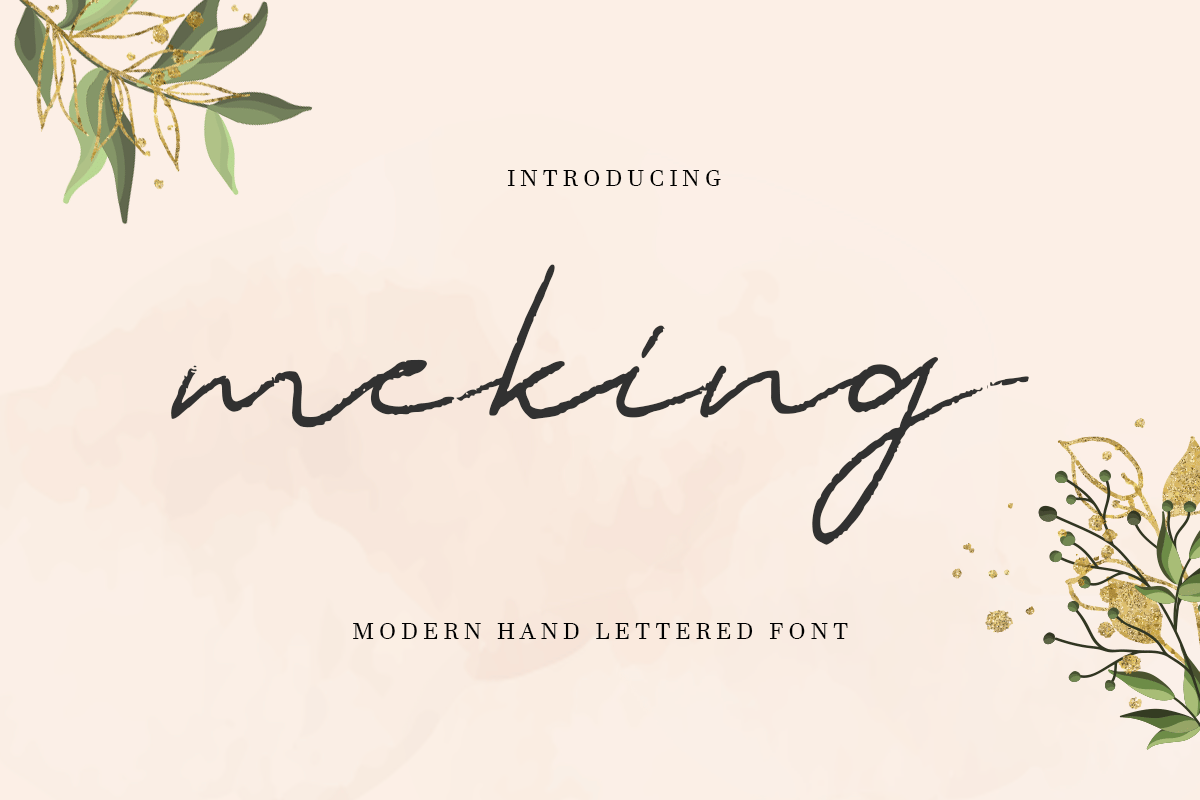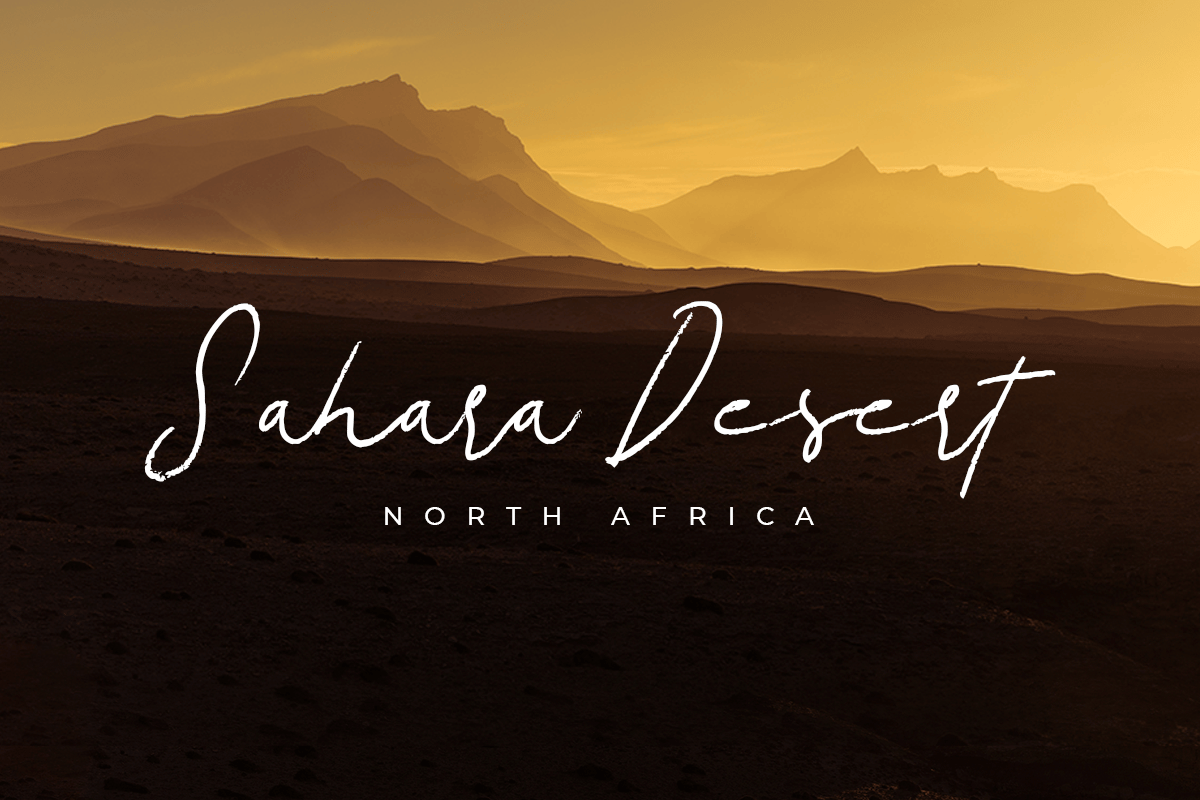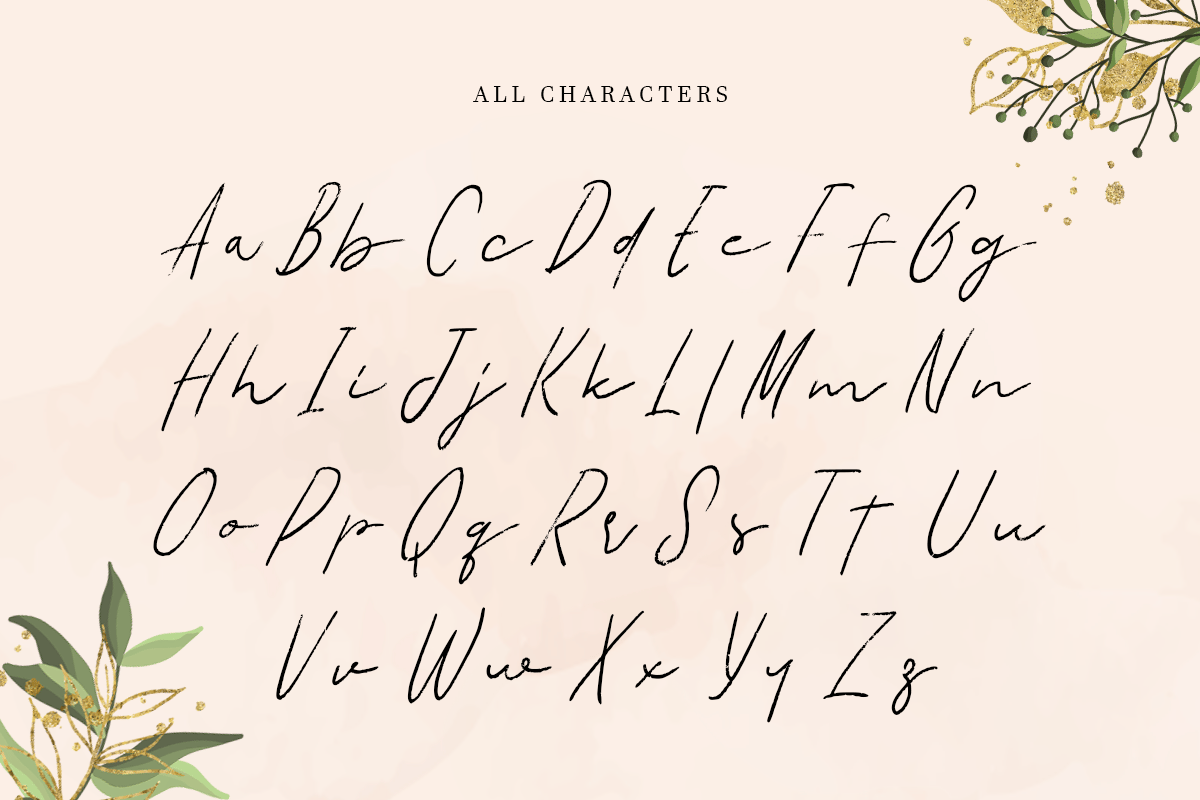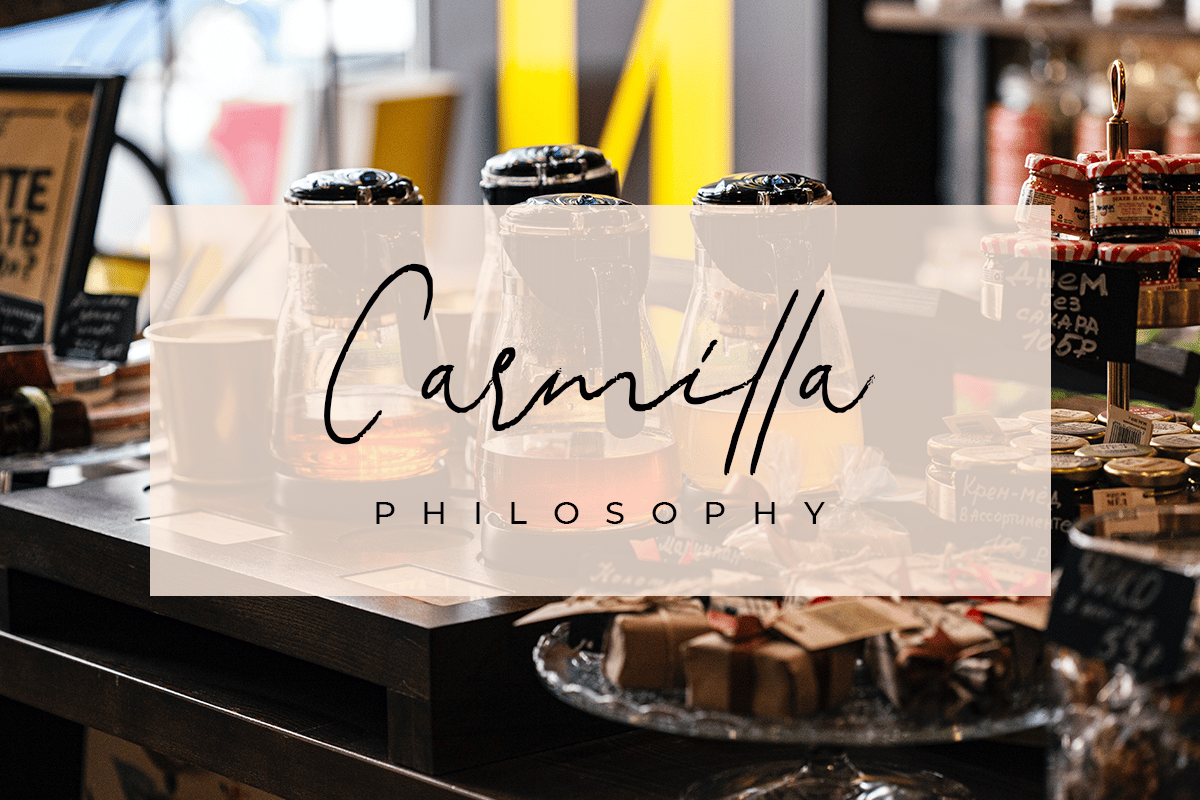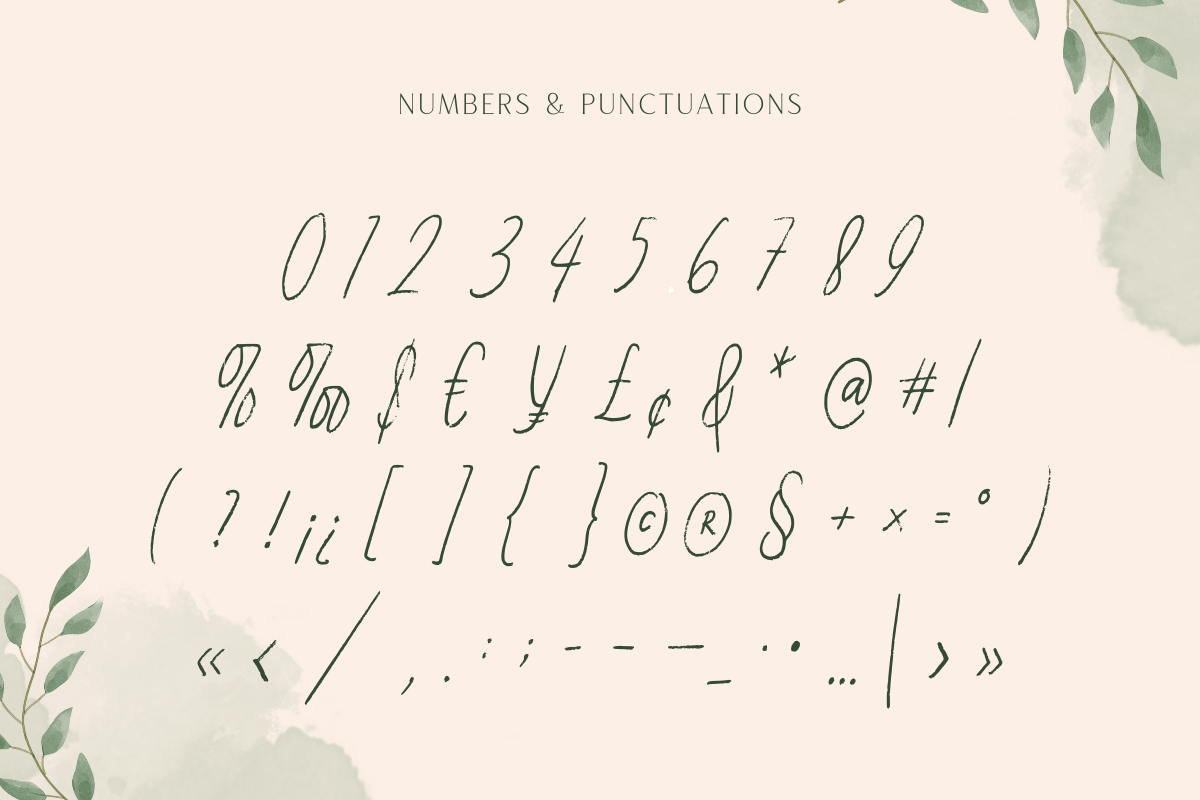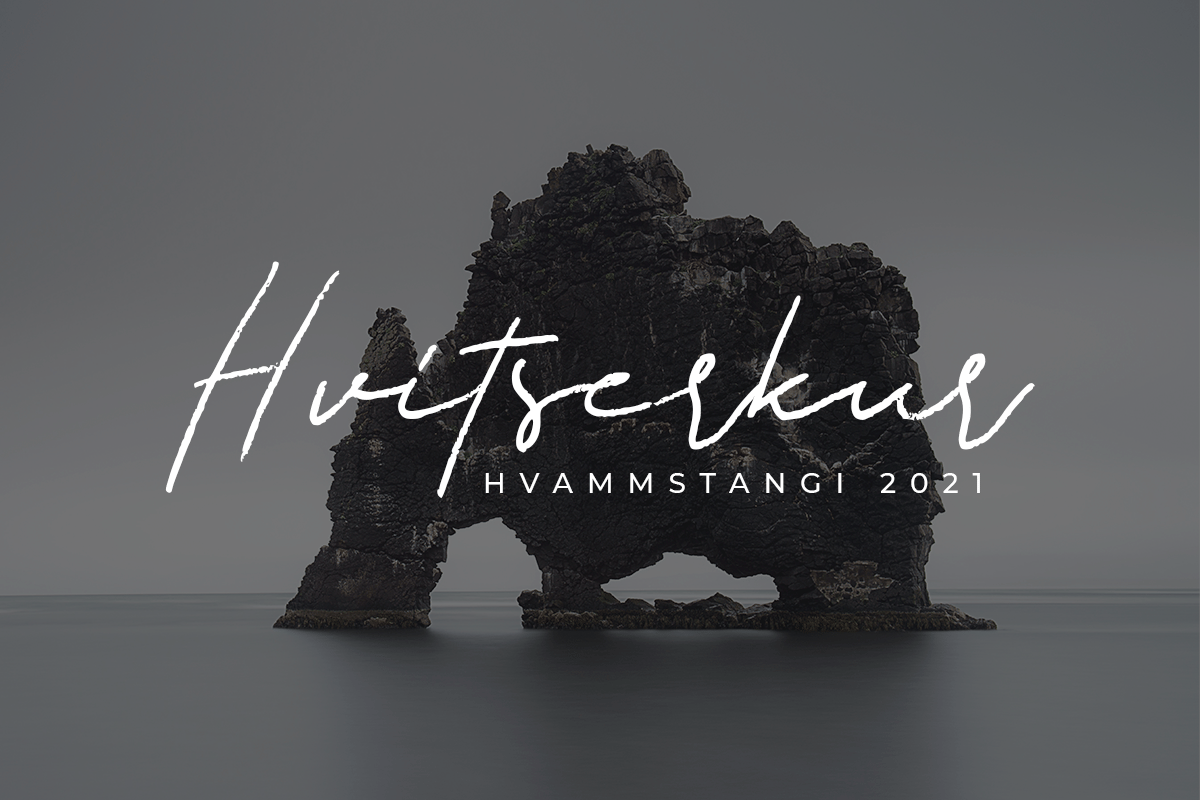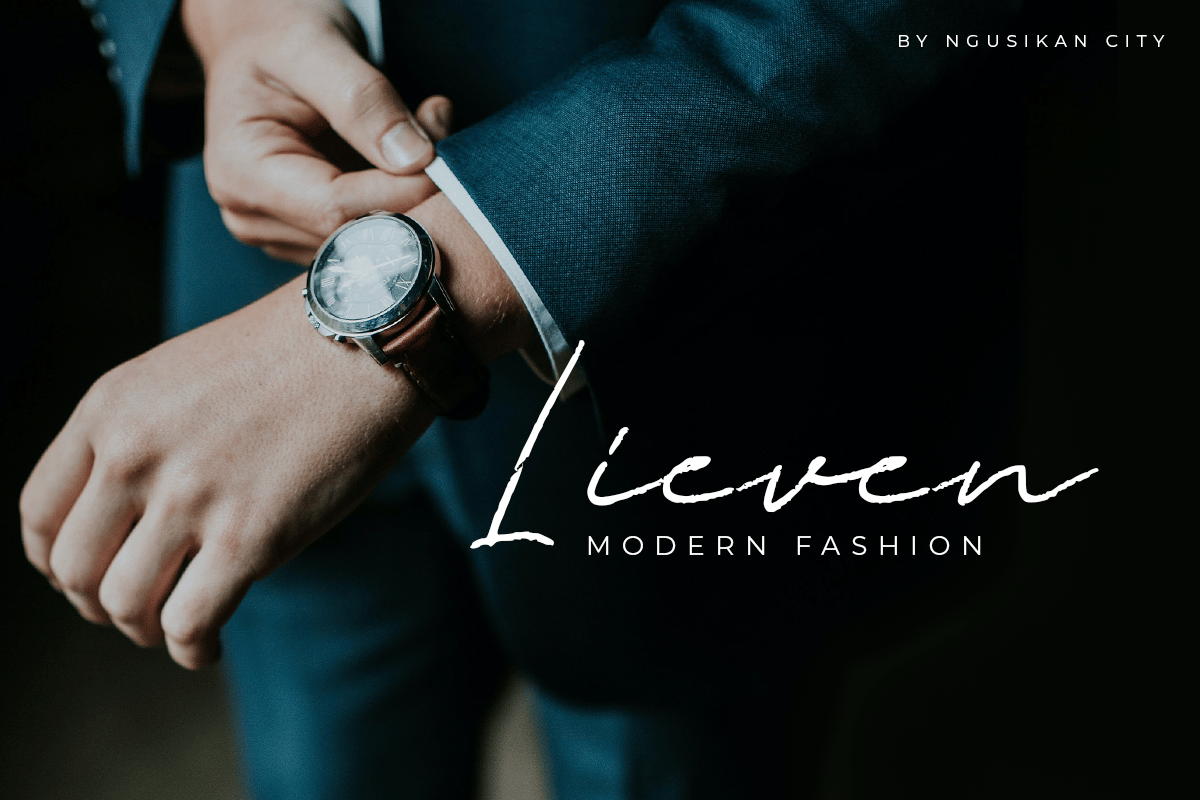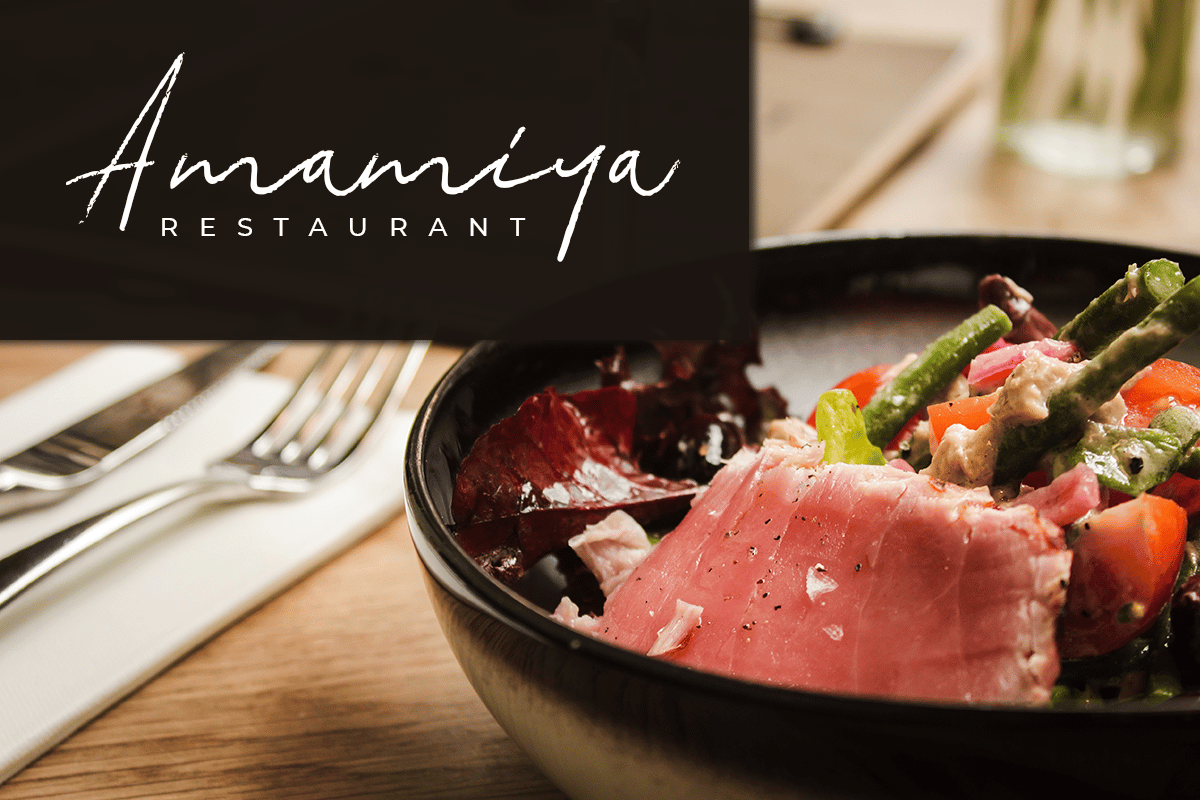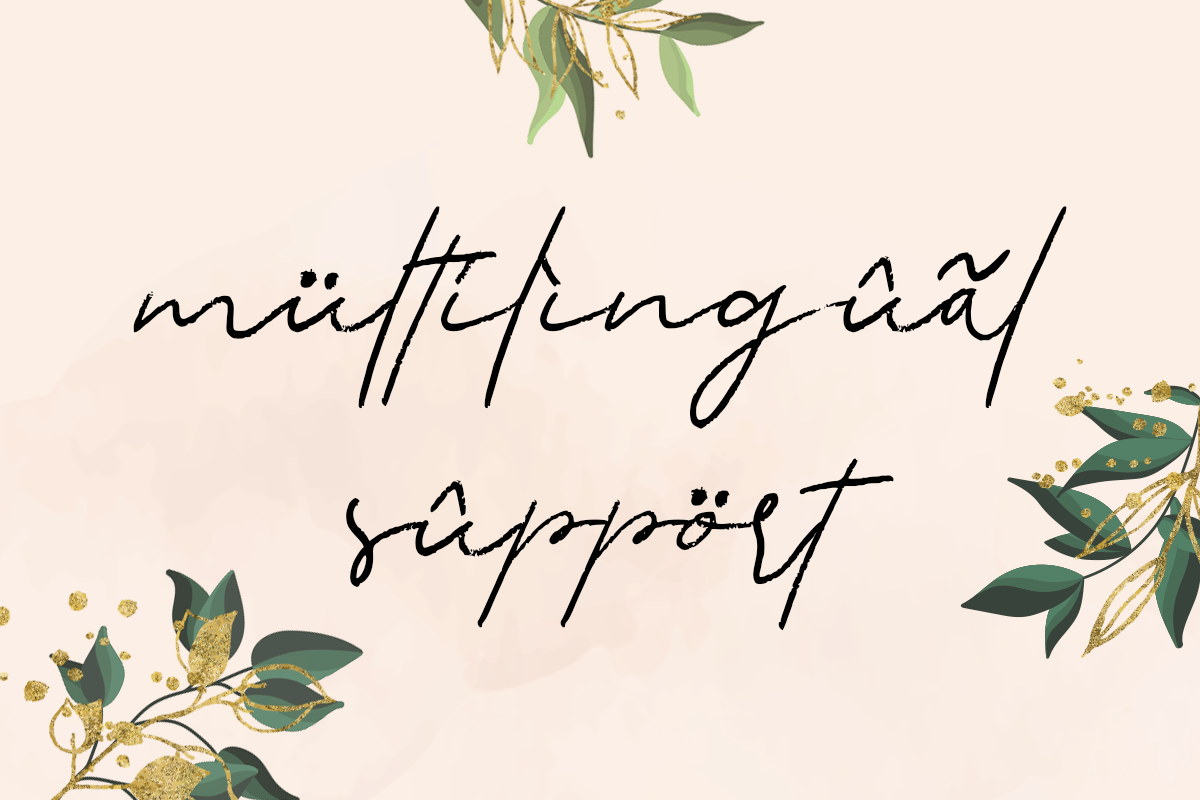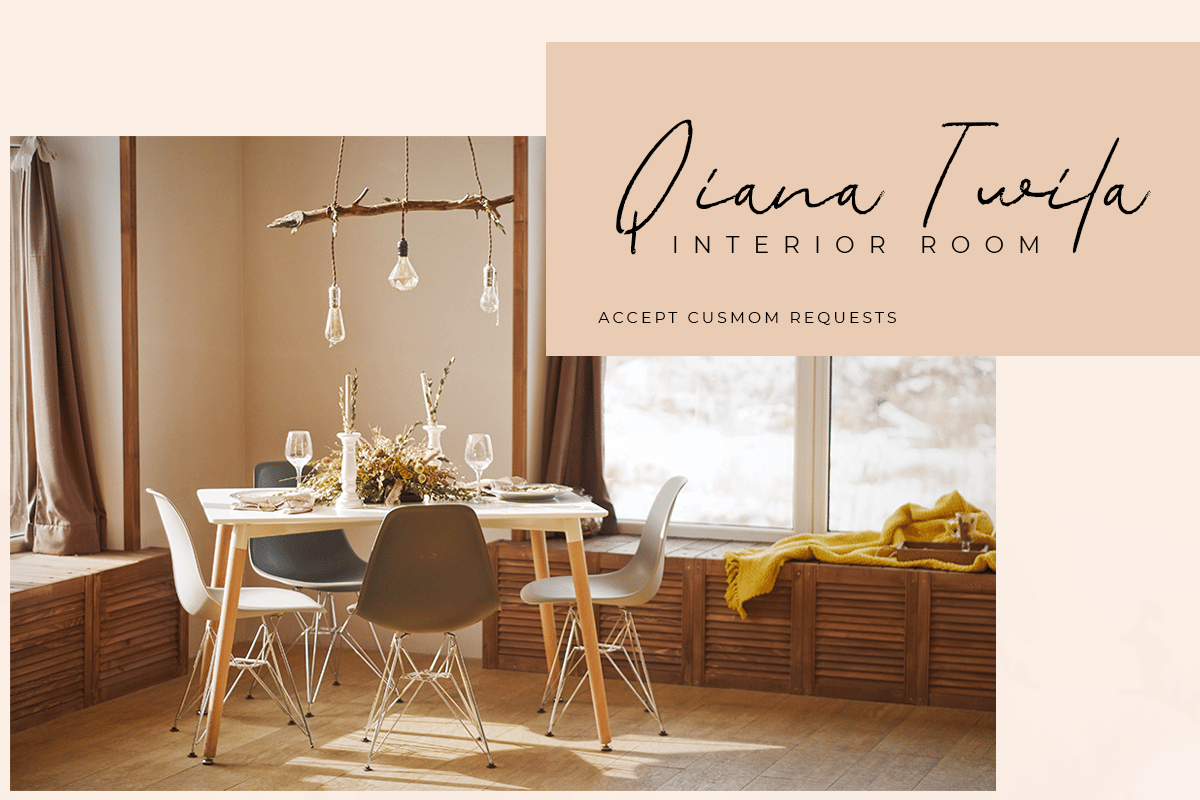
Meking – Handwritten Rough Script Font
Meking is a Handwritten Rough Script Font with fun and beauty style and so natural. This font specially crafted for your branding, quotes design projects or cute logo, unique, modern for any designs such as print, merchandise, and so many more with easy to use but unique results are so beauty.